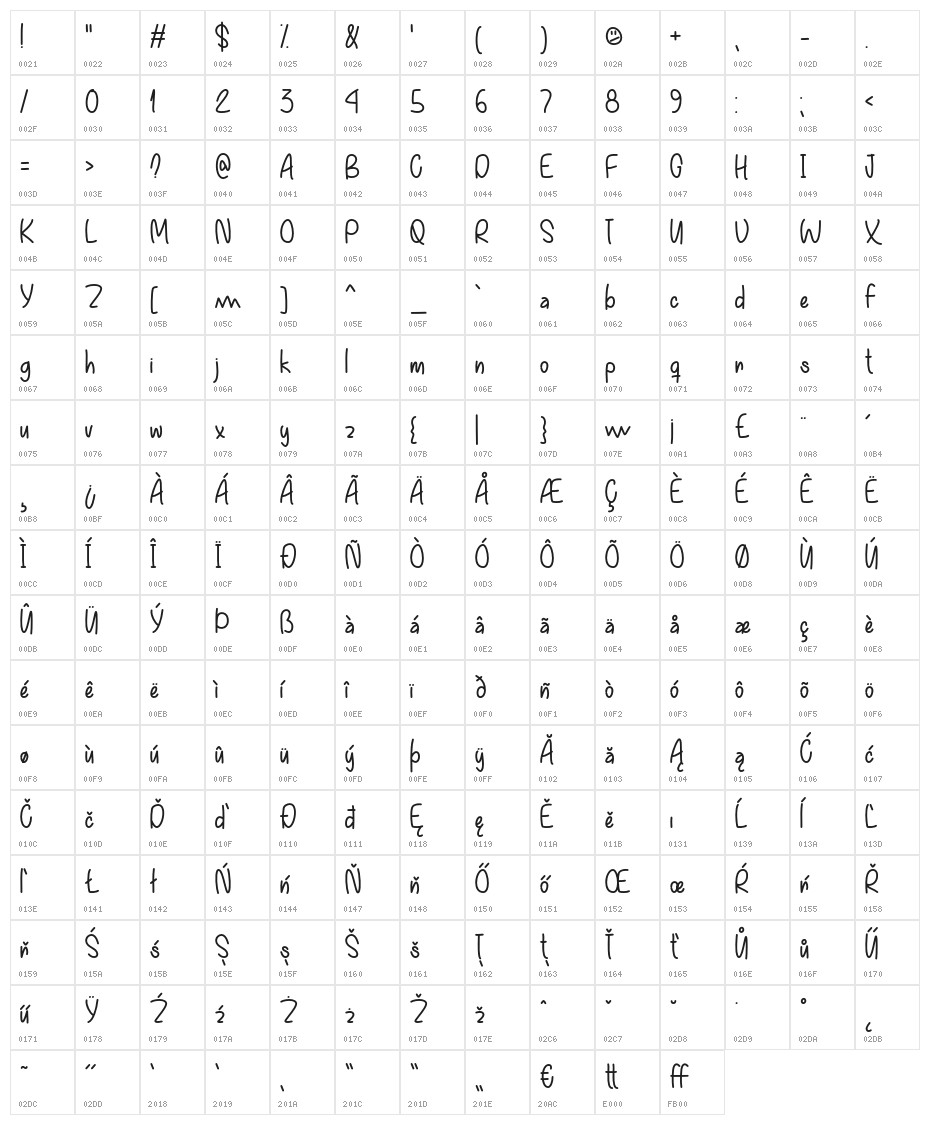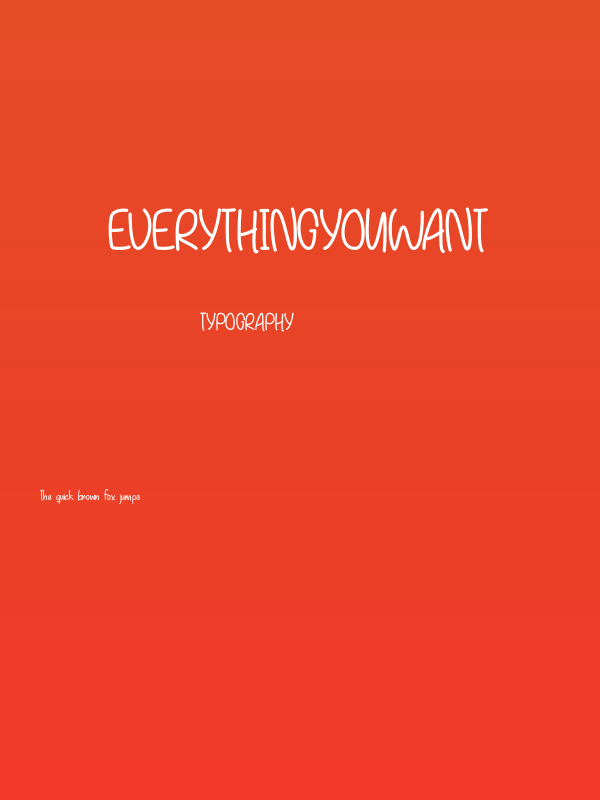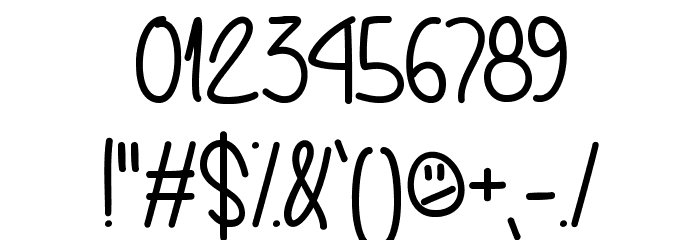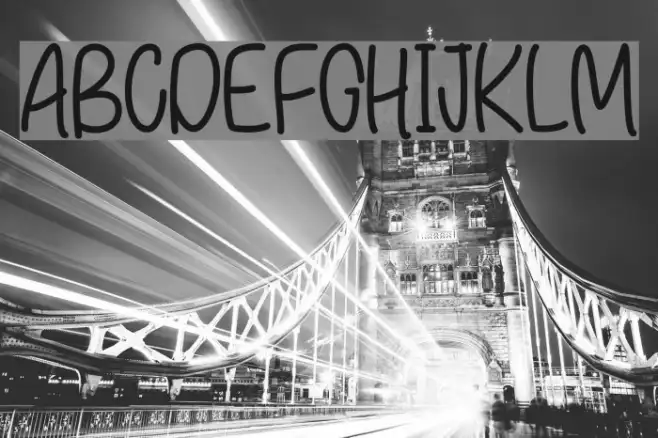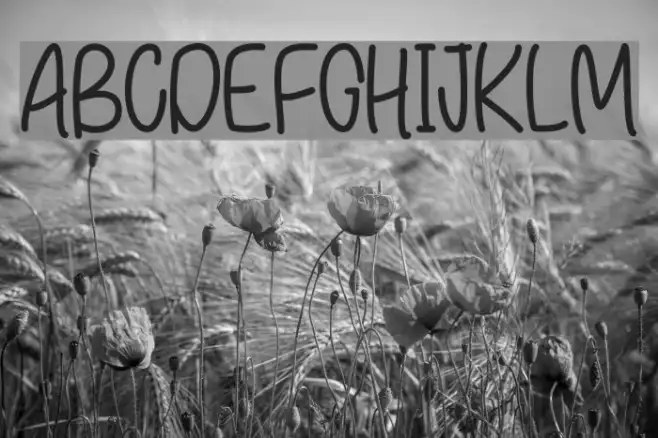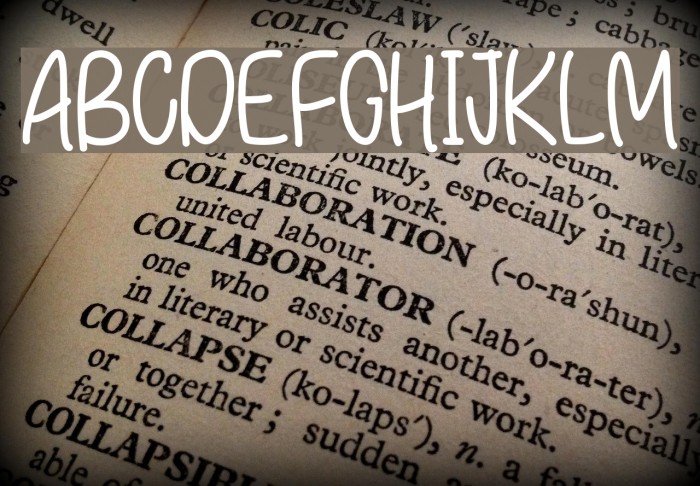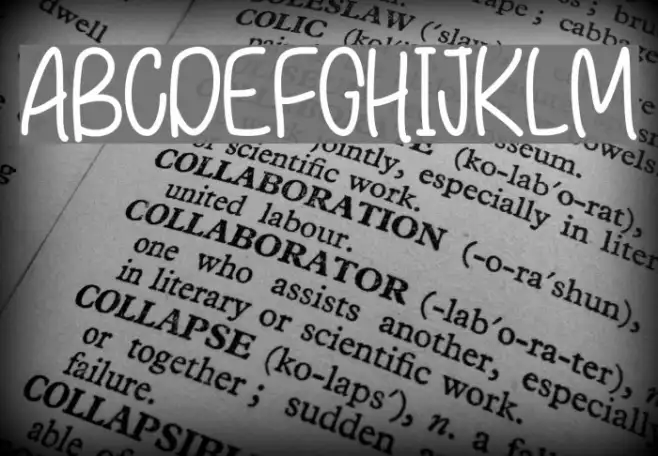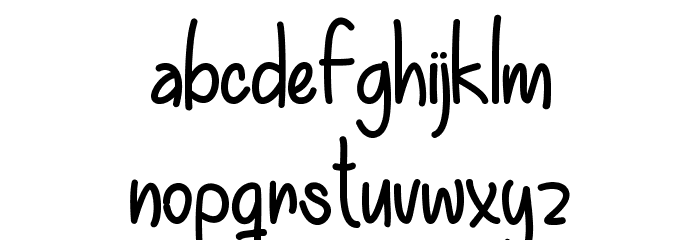
EverythingYouWant Font
EverythingYouWant Description
This playful and casual font features a handwritten style with smooth, rounded edges and a friendly appearance. The characters are slightly elongated, giving them a whimsical and approachable look. The uppercase letters are bold and prominent, while the lowercase letters maintain a consistent flow, enhancing readability. Numbers and special characters are designed to match the overall style, ensuring a cohesive look across all text elements. This font is ideal for projects that require a personal touch, such as invitations, greeting cards, or playful branding materials.
| Proposed Projects | Ideal for invitations, greeting cards, playful branding, and children's book covers. |